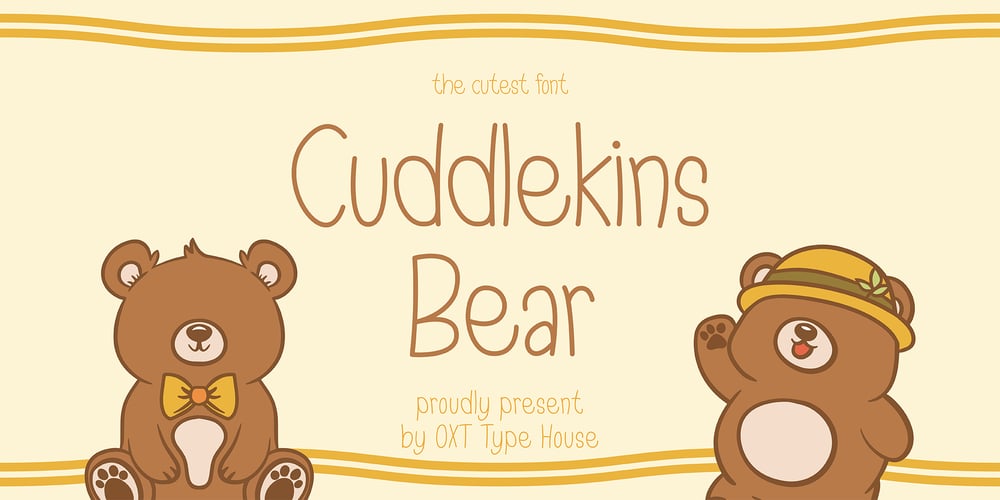
Cuddlekins Bear Font Family was designed by Oksta Aziz Rachmaddan and published by Oxt Type House. Cuddlekins Bear contains 1 styles and family package options. This font was created to meet your design needs with a childlike feel.The thin but flexible design makes it very similar to the original writing of children in general.This font is very suitable for children’s needs, kindergartens, story books, clothing and everything related to fun.